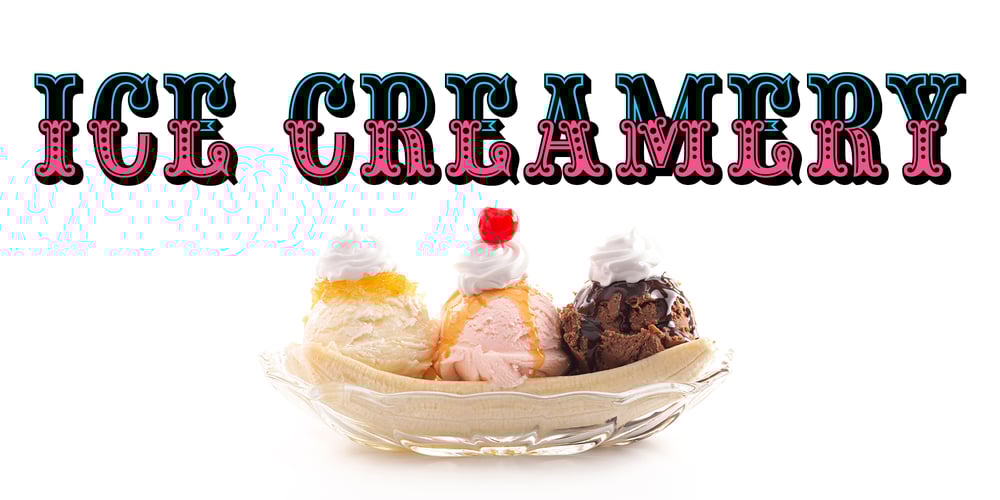
Ice Creamery Font Family was designed by Michael Hagemann and published by FontMesa. Ice Creamery contains 20 styles and family package options. Ice Creamery is a new variation of our Saloon Girl font family complete with italics and fill fonts which may be used to layer different colors into the open parts of each glyph.We don’t recommend using the fill fonts for Ice Creamery as stand alone solid fonts, Ice Creamery Chocolate was designed as a the stand alone solid font for this font family.Fill fonts go back to the 1850’s where they would design matched sets of printing blocks and the layering of colors took place on the printing press, they would print a page in black then on a second printing they would print a solid letter in red or blue over the letters with open spaces to fill them in.Most of the time the second printing didn’t line up exactly to the open faced font and it created a misprinted look.With the fill fonts in Ice Creamery and other FontMesa fonts you have the option to perfectly align the fill fonts with the open faced fonts or shift it a little to create a misprinted look which looks pretty cool in some projects such as t-shirt designs.I have some ice cream making history in my family, my Grandfather Fred Hagemann was the manager of the ice cream plant for thirty years at Cock Robin Ice Cream and Burgers in Naperville IL.In the images above I’ve included an old 1960’s photo of the Cock Robin Naperville location, the ice cream plant was behind the restaurant as seen by the chimney stack which was part of the plant.If you were to travel 2000 feet directly behind the Cock Robin sign in the photo, that’s where I started the FontMesa type foundry at my home in Naperville.My favorite ice cream flavor was their green pistachio ice cream with black cherries, they called it Spumoni even though it wasn’t a true Spumoni recipe.Their butter pecan ice cream was also incredibly good, the pecans were super fresh, their Tin Roof Sundae ice cream was chocolate fudge, caramel and peanuts swirled into vanilla ice cream.One unique thing about Cock Robin and Prince Castle was they used a square ice cream scoop for their sundaes.